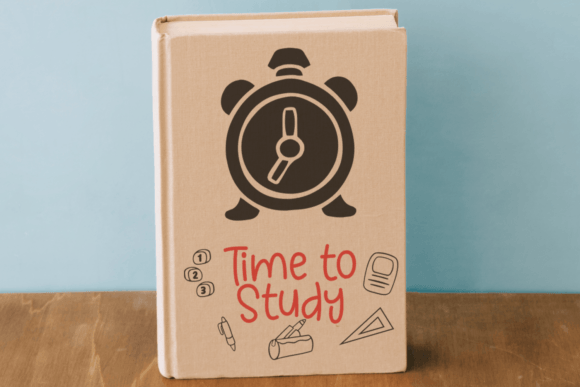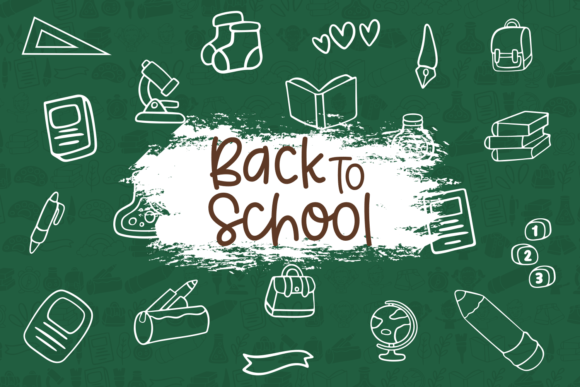
ABOUT DOODLES FOR SCHOOL FONT
“Doodles for School” is a fantastic dingbat font that brings creativity and charm to your school-themed projects. With its collection of adorable doodles, this font offers a wide range of playful and educational illustrations to enhance your designs.
Whether you’re working on school flyers, posters, worksheets, or any other school-related project, “Doodles for School” adds a delightful touch. The doodles include a variety of school elements such as pencils, books, rulers, chalkboards, backpacks, and more. These whimsical illustrations instantly evoke a sense of nostalgia and create a friendly and engaging atmosphere.
The versatility of “Doodles for School” allows you to use the doodles in various ways. You can incorporate them as decorative elements, create borders or frames, or even combine them to form custom compositions. The hand-drawn style of the doodles adds a personal and unique touch to your designs, making them stand out from the crowd.
One of the greatest advantages of “Doodles for School” is its ability to make learning materials and educational resources more engaging. Whether you’re designing worksheets, flashcards, or educational posters, the playful and relatable doodles can capture the attention of students and make learning more enjoyable. The font’s whimsical nature creates a positive and welcoming learning environment.
Furthermore, “Doodles for School” is also perfect for creating school event invitations, newsletters, and bulletin boards. The charming illustrations bring a sense of fun and excitement to these projects, setting a cheerful tone and grabbing the attention of your audience.
So, unleash your creativity with “Doodles for School” and let it add a touch of whimsy to your school-themed projects. Incorporate these adorable doodles into your designs and watch as they infuse joy and creativity into your visuals. Whether you’re designing for students, teachers, or parents, “Doodles for School” is a delightful font that will make your projects shine.